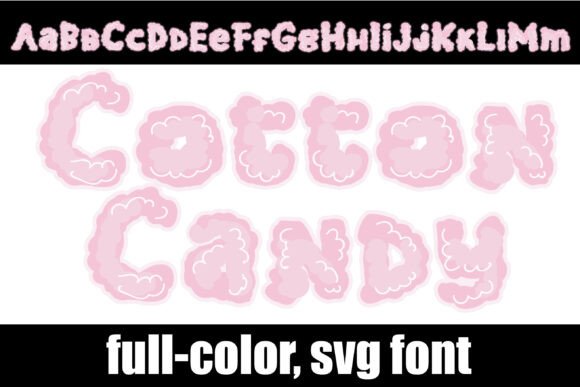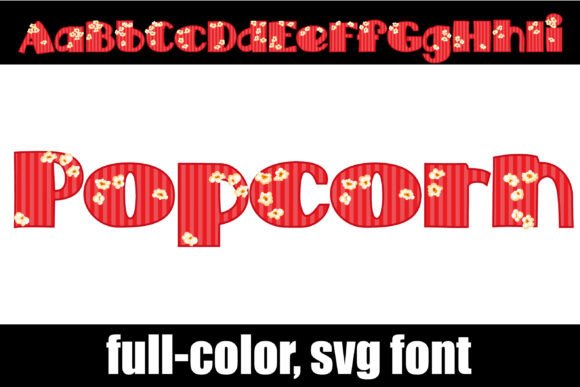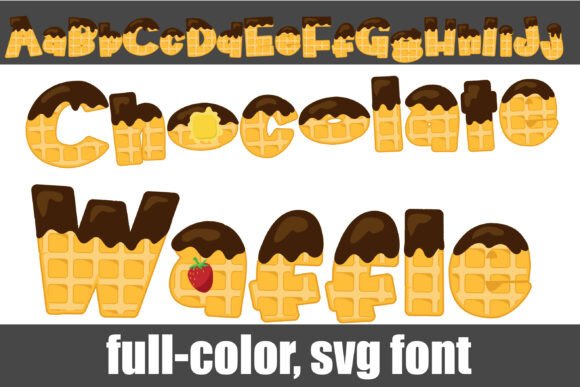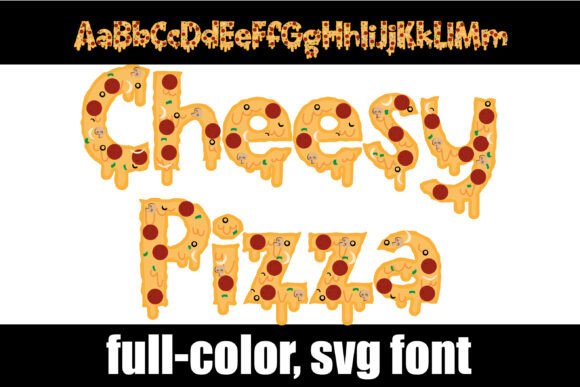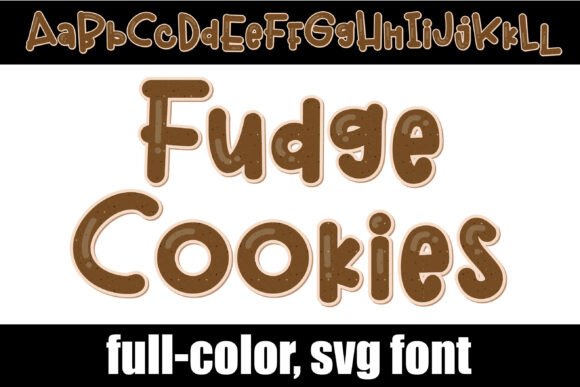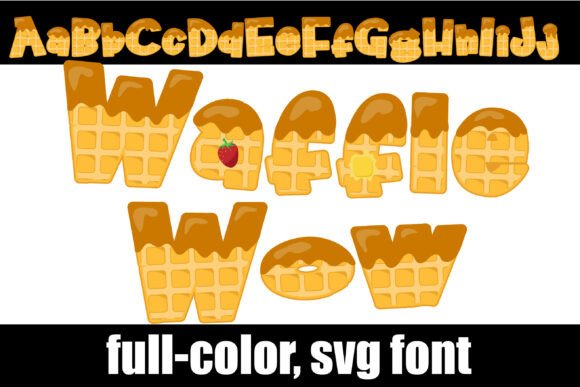
Introduction to Eat It Up Color Font Font
Fonts play a crucial role in design, and the Eat It Up Color Font font is a typeface that brings both character and versatility to any project. Whether you’re working on a branding project, a website, or a print design, the Eat It Up Color Font font offers a unique style that can elevate your work.
Eat It Up | The Delicious Color Font Bundle Satisfy your creative cravings with Eat It Up, a mouth-watering bundle of illustrative color fonts that turn every word into a treat.
From the waffle-textured “Waffle Wow” to the sprinkle-covered “Mint Ice Cream,” the savory “Cheesy Pizza,” and even “Taco” letters, this collection uses high-definition textures to mimic your favorite snacks It is the premier choice for independent food truck branding, artisanal bakery labels, children’s cooking book titles, and high-energy “food-vlogger” social media headers.
Key Features of Eat It Up Color Font Font
Why Choose Eat It Up Color Font Font?
The Eat It Up Color Font font is more than just a typeface – it’s a design tool that helps you communicate your message with style and clarity. Its unique character set and versatile design make it suitable for a wide range of applications, from elegant invitations to bold headlines.
With its carefully crafted letterforms and balanced proportions, the Eat It Up Color Font font ensures readability and visual appeal across all mediums.
What makes Eat It Up Color Font font special?
The Eat It Up Color Font font stands out with its unique design, exceptional readability, and versatility across various design applications.